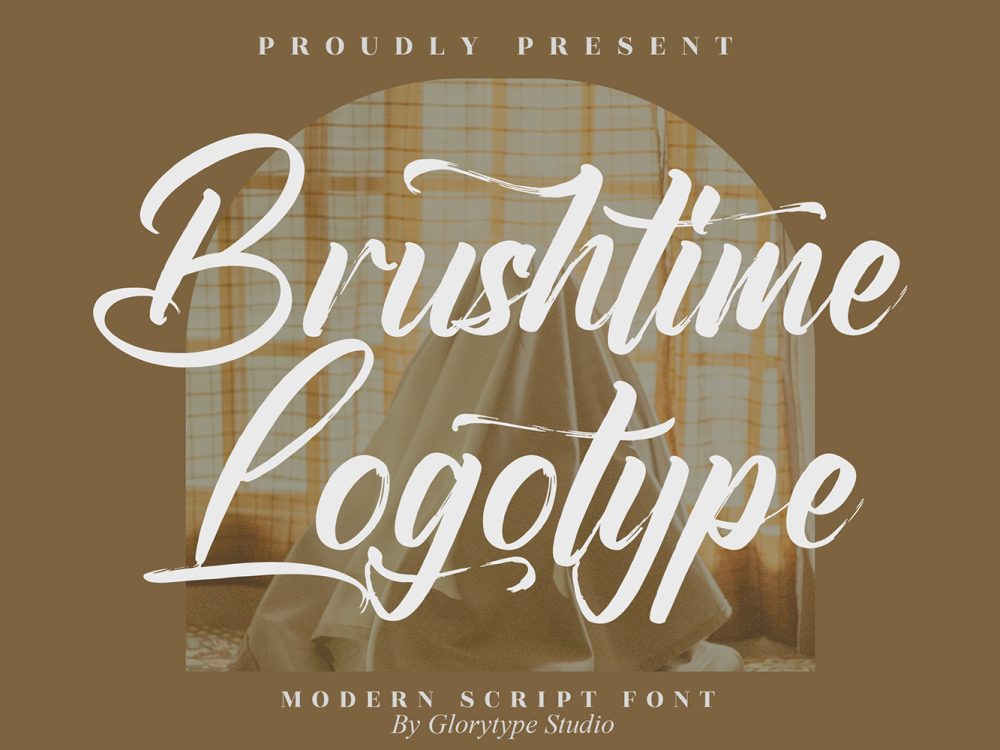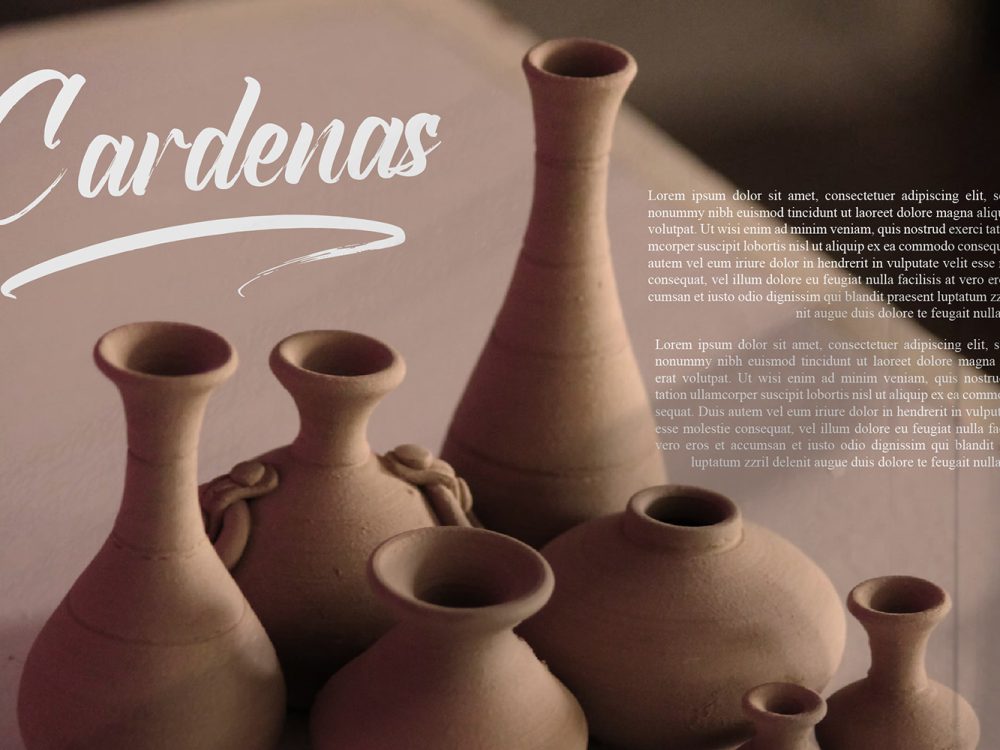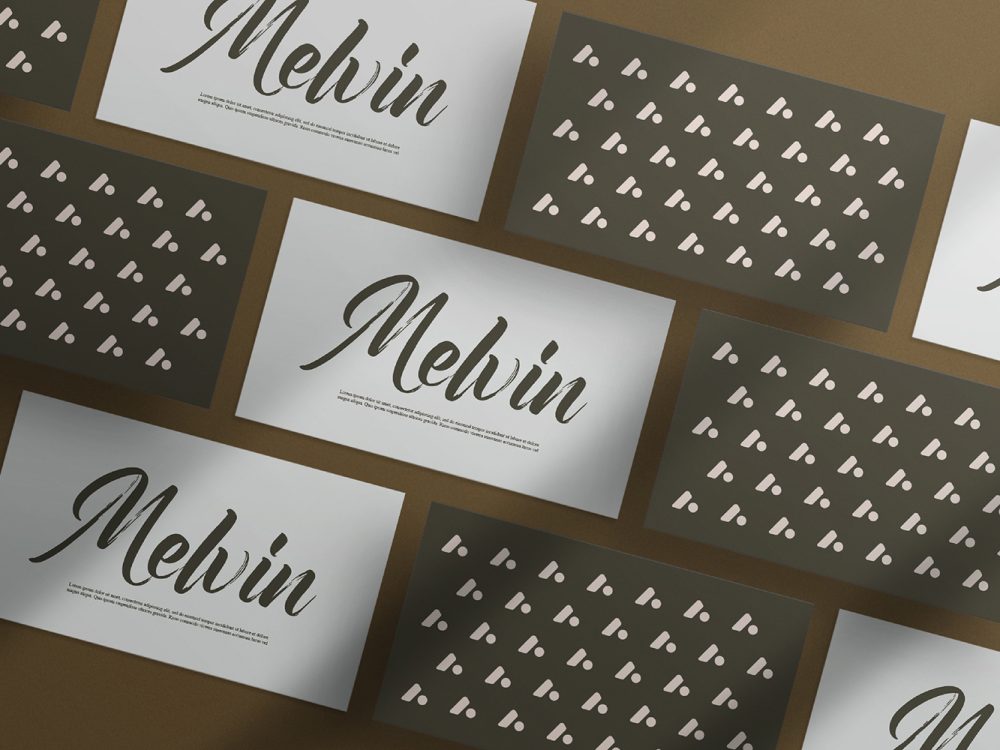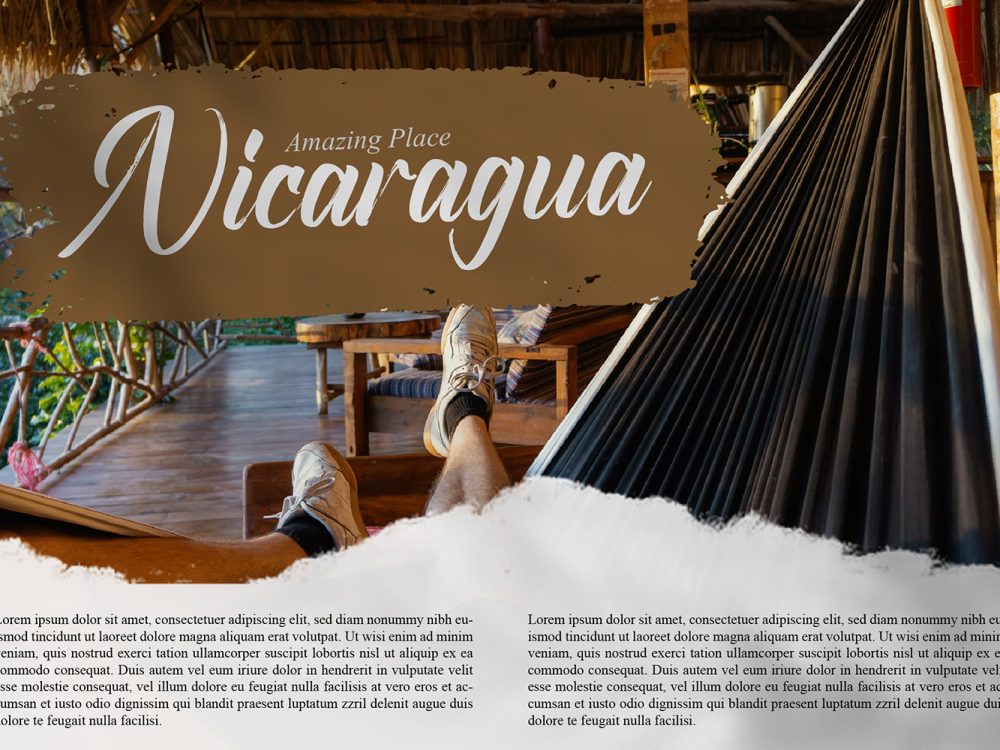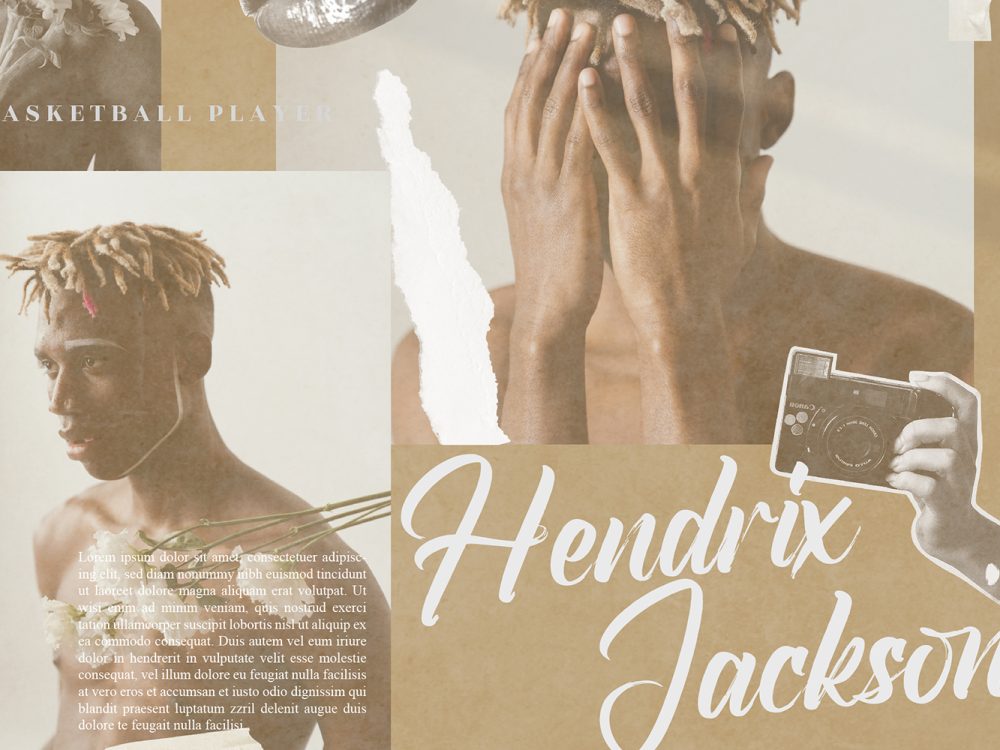
Brushtime Logotype Free Font
Experience the allure of Brushtime Logotype Free Font, a refined script font exuding a modern ambiance and flawless structure. Drawing inspiration from the timeless elegance of classic calligraphy, it captures a sense of sophistication that transcends eras. If you like it don’t forget to check out the full version.